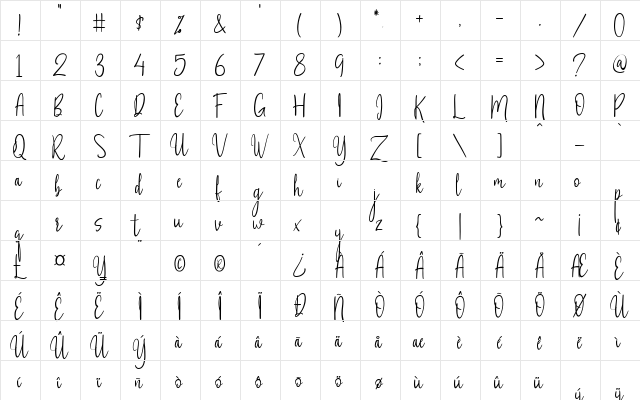
Untidy Typeface Regular
Design Context for Untidy Typeface Typeface
Untidy Typeface is a composed and adaptable typeface that performs quietly and consistently across a wide range of design contexts.